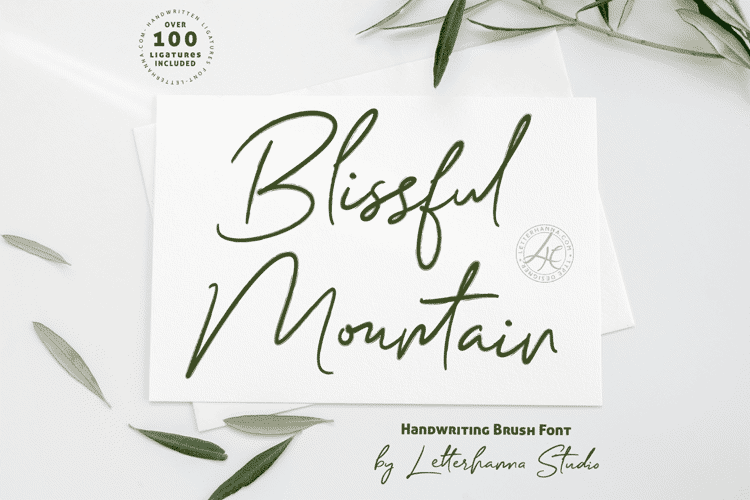
Blissful Mountain Font
Introducing "Blissful Mountain," a captivating brush script font that invites you to embark on a journey to serenity. With its graceful strokes and artistic flair, this font encapsulates the essence of tranquility found in the heart of majestic mountains. Each character is meticulously designed to convey the peaceful and blissful aura of nature's grandeur.